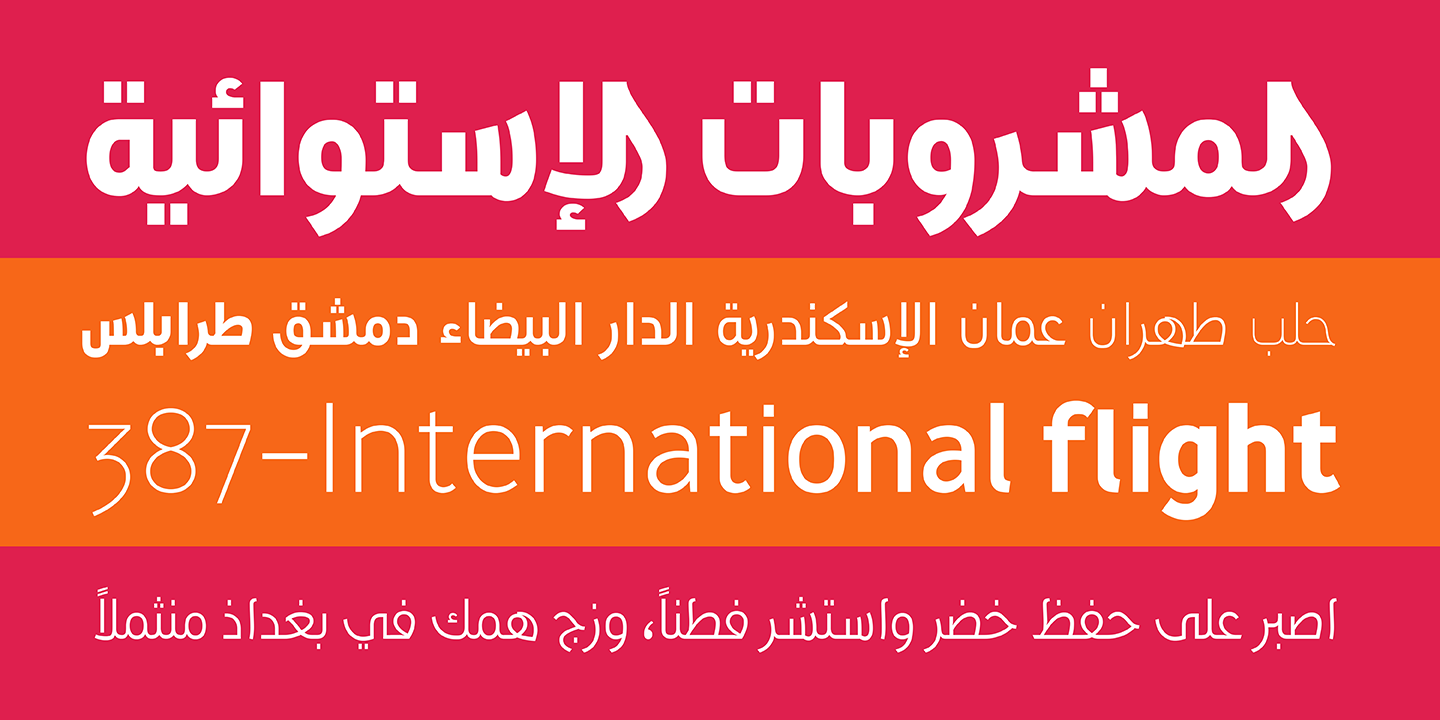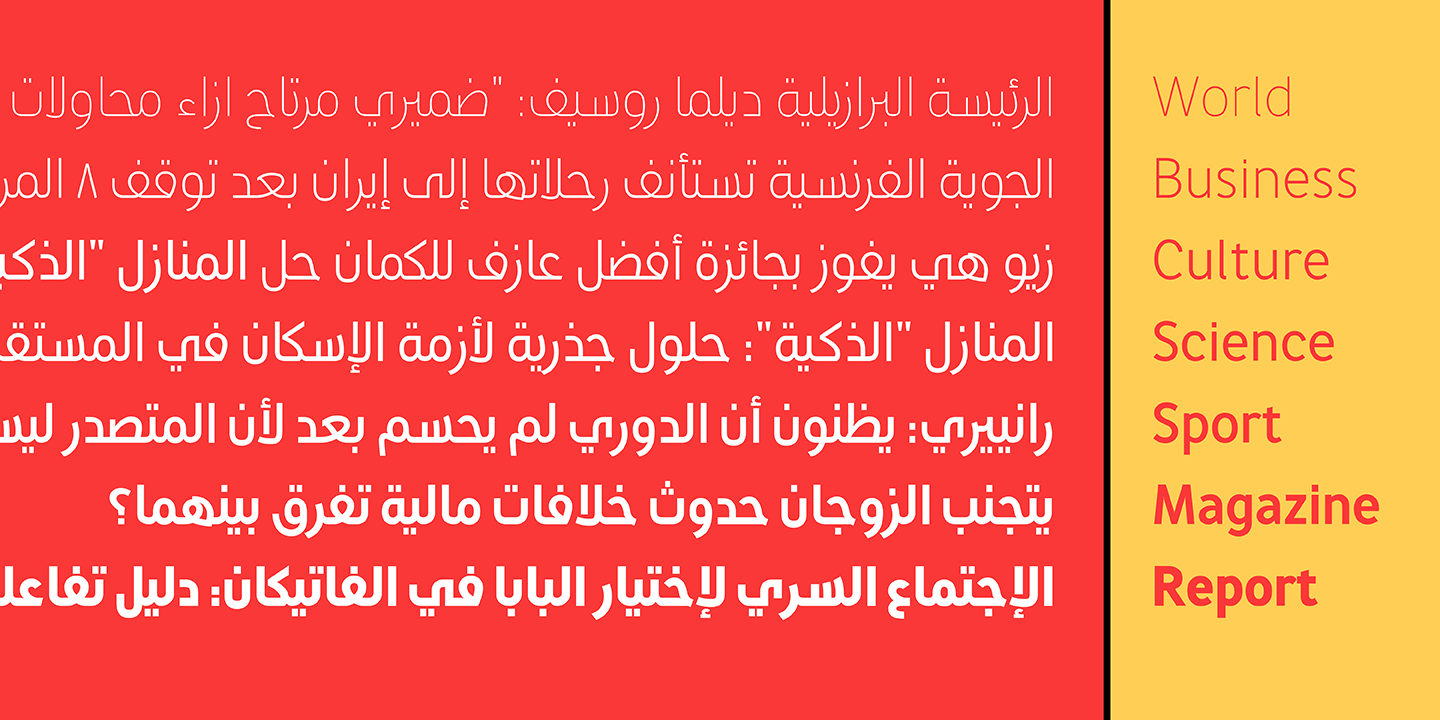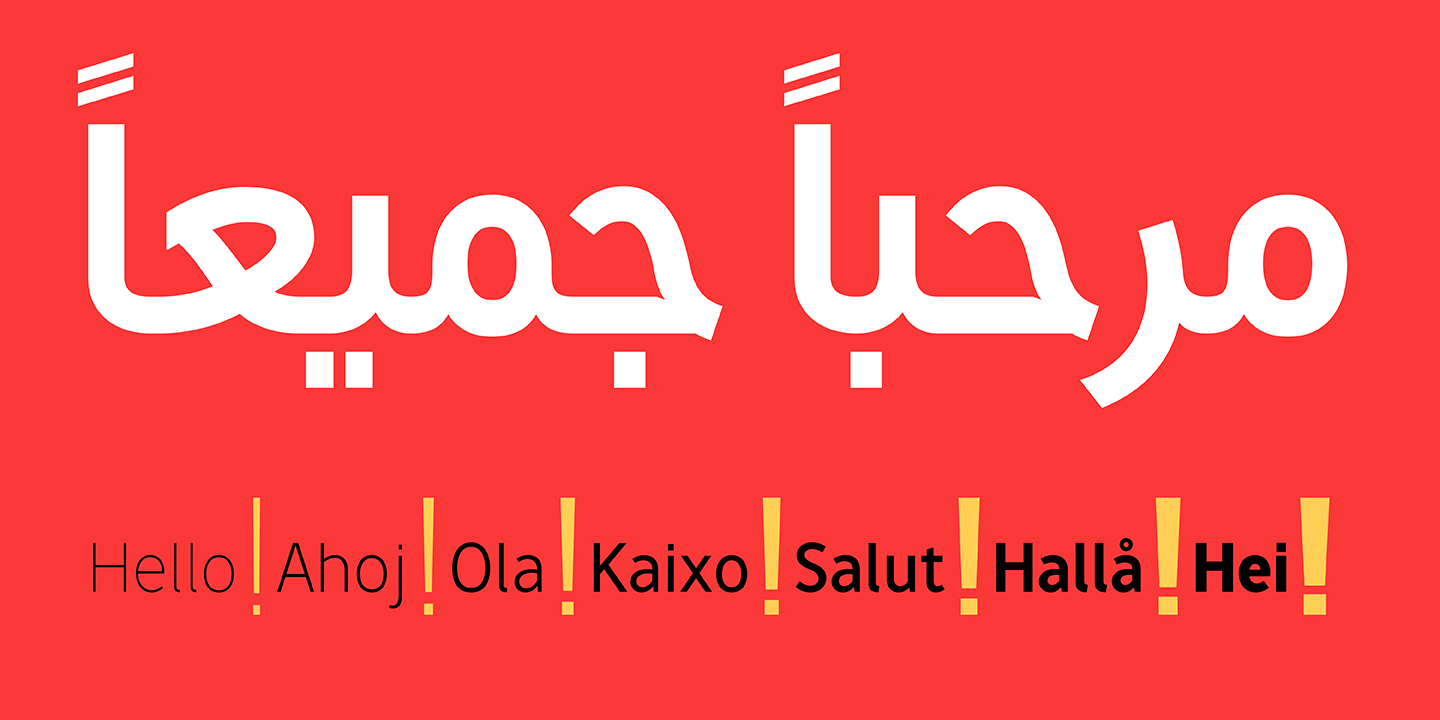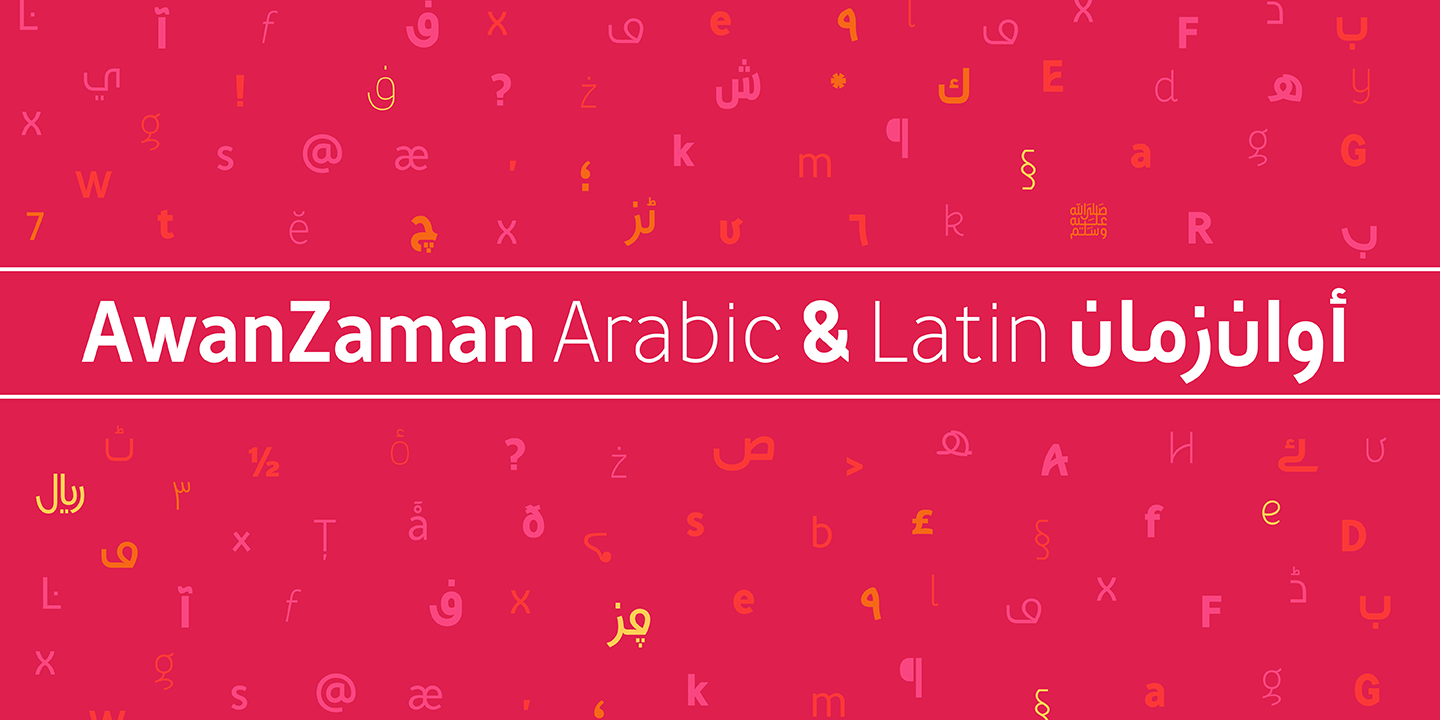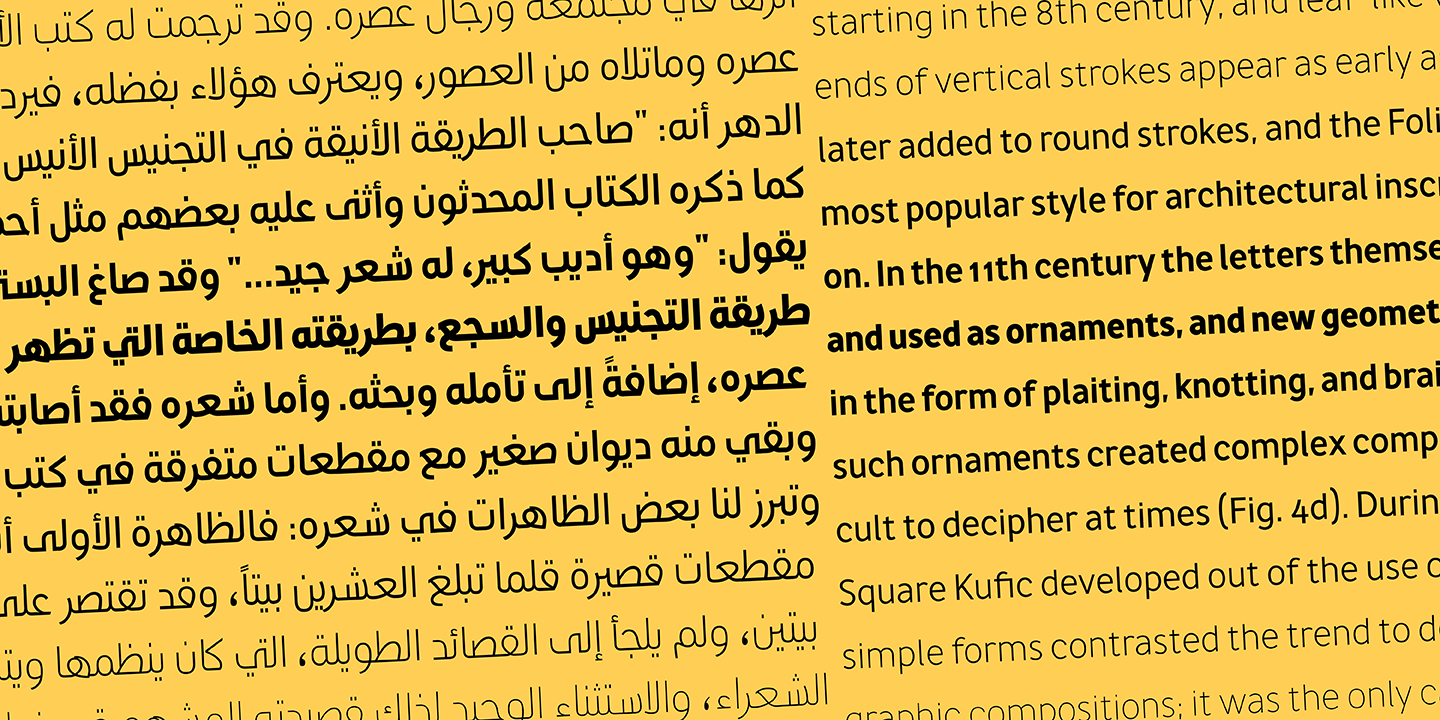
Juliet Shen started out as a painter and became a graphic designer out of economic necessity. For more than 25 years the profession suited her aspirations just fine. Then she was asked to teach typography and her life changed. All she has learned since then about typeface design has convinced her that it’s the tao of applied art, which was capped by a year in the MA Typeface Design program at the University of Reading.
Now she designs for a few select clients, crafts typefaces, teaches, makes letterpress prints, and studies tai chi. She has designed a custom font family for Oxford University Press and a Lushootseed font for the Tulalip Tribes based on traditional Salish aesthetics. Juliet was born in New York where her father was a translator for the United Nations. She lives in Seattle and teaches typography at the School of Visual Concepts.